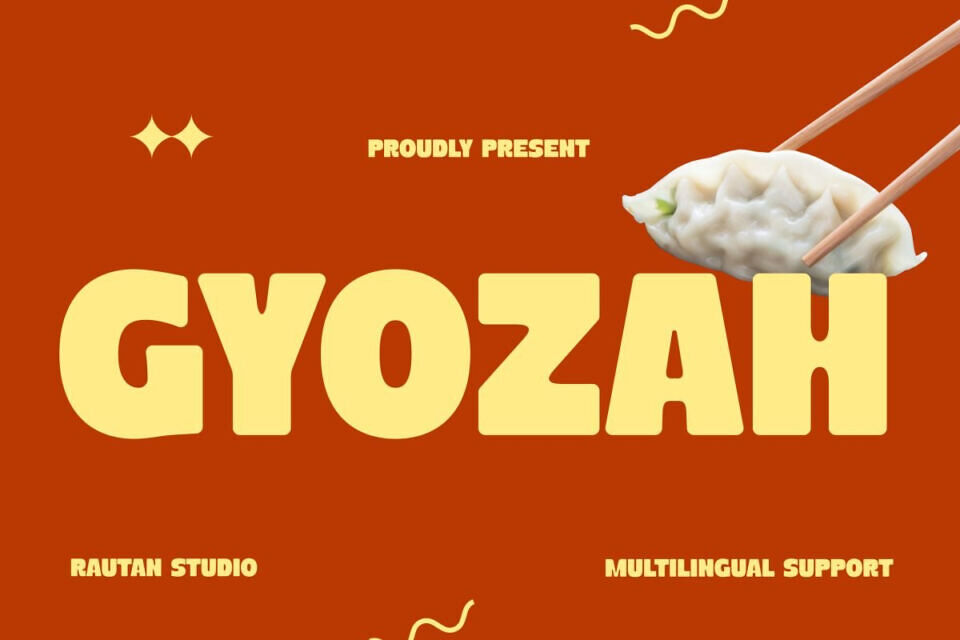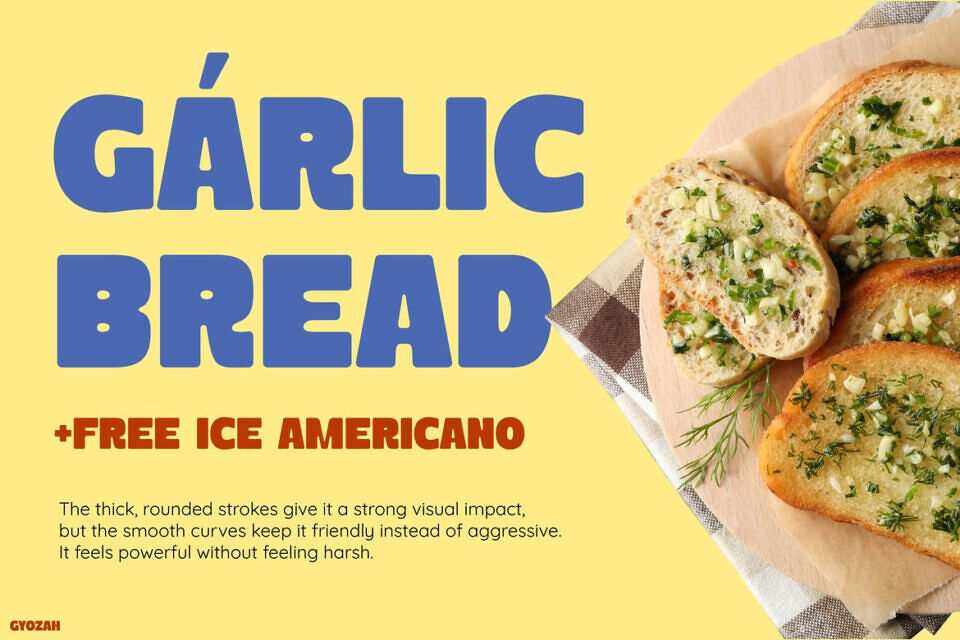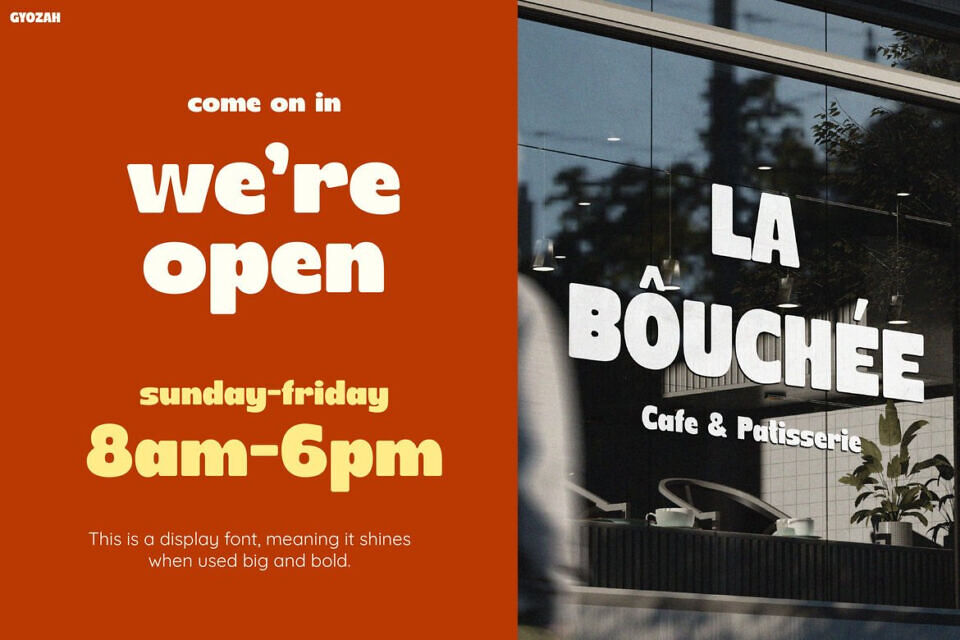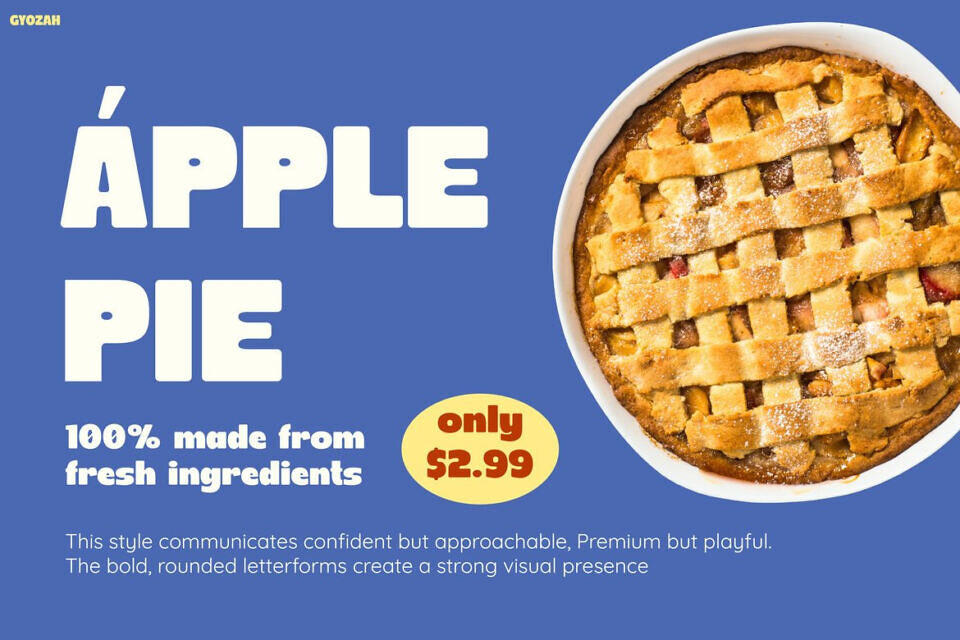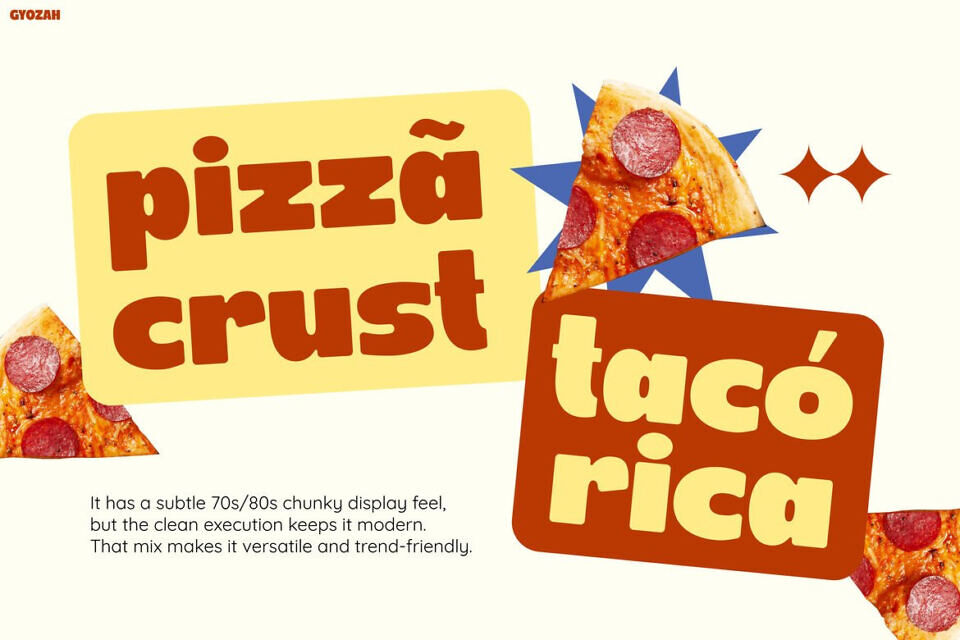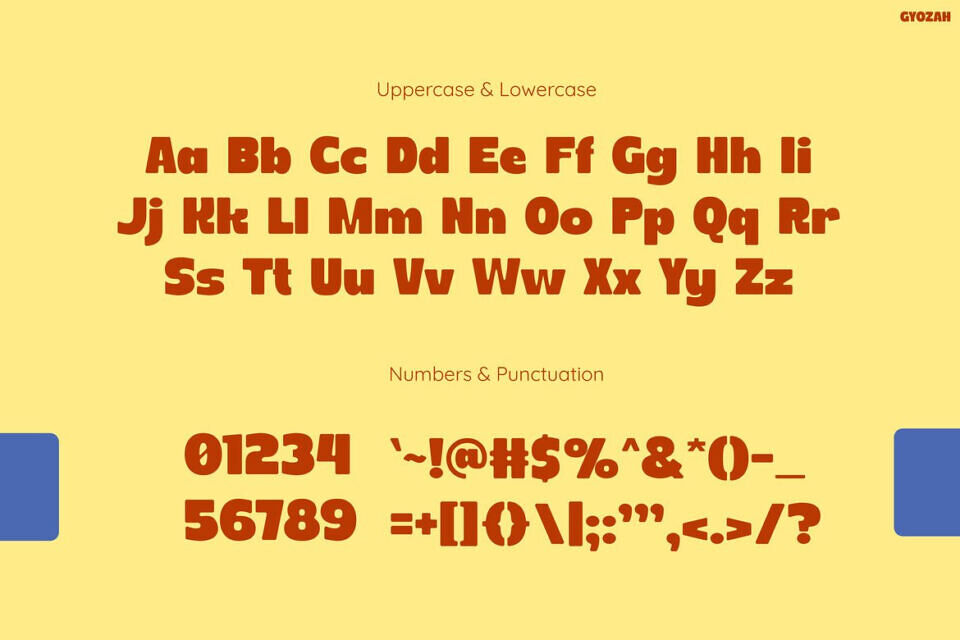
Gyozah Font is a bold display typeface featuring thick, rounded letterforms that create a strong yet inviting appearance. Its compact design and soft edges give it a cheerful, approachable character, while subtle retro vintage influences add a nostalgic touch without sacrificing a clean, contemporary look.
Ideal for food-related branding, restaurant logos, café menus, and packaging, Gyozah Font performs especially well in large titles and attention-grabbing designs. Its chunky shapes also make it an excellent choice for posters, product packaging, advertising materials, social media graphics, and other creative projects that call for a fun, bold, and memorable visual style.